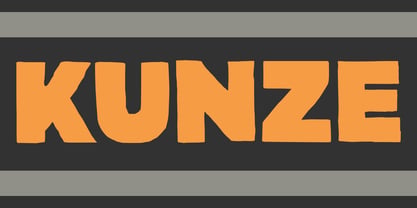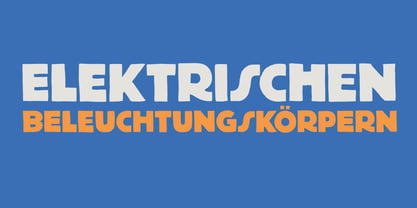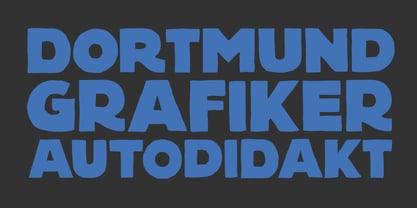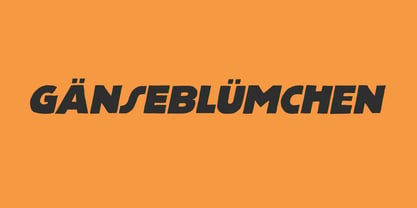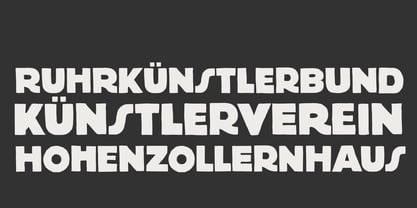
Kunze Pro
Kunze Pro font was inspired by the work of German graphic artist Carl Kunze (Minden, 1884). Kunze Pro is a fat display font; a little rough around the edges, a little wonky in places, but very distinguishable and useful. Kunze Pro is a headline font, which is well suited for creative product packaging, book covers and T-shirts. Comes with extensive language support.